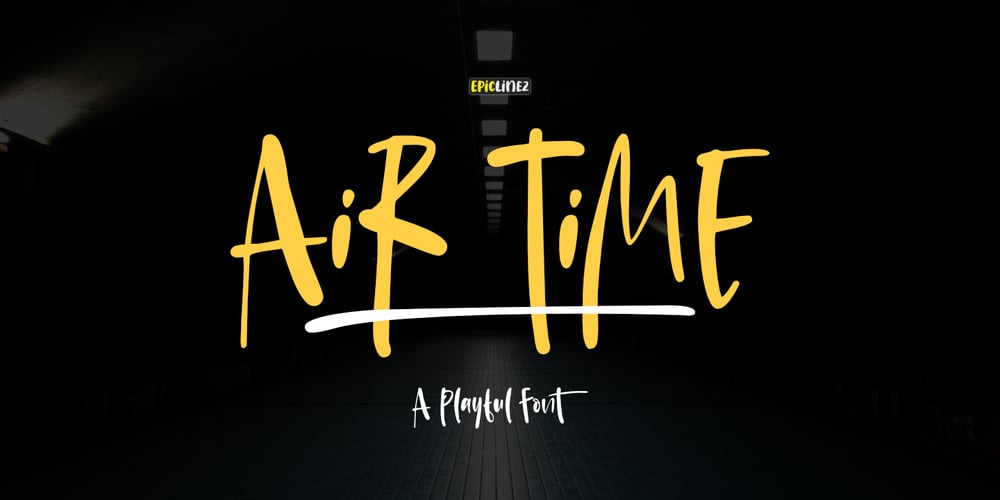
Air Time Font Family was designed by Aldy Sidik and published by Epiclinez. Air Time contains 1 styles and family package options. Air Time is a fun and playful display font. Its unique handwritten style makes it fitting to a wide range of designs.So add it confidently to your informal or casual ideas, and you will love the results.The font Air Time contains 204 glyphs. Supporting more than 66 languages, from English to Zulu.This cute font also contains OpenType features such as ligatures with alternates or substitutes.